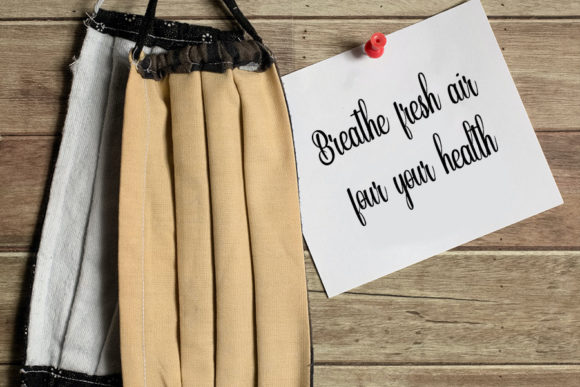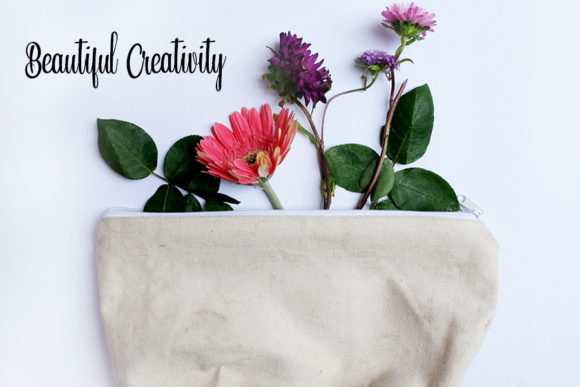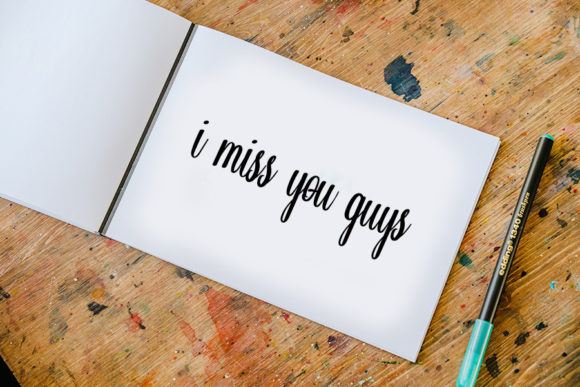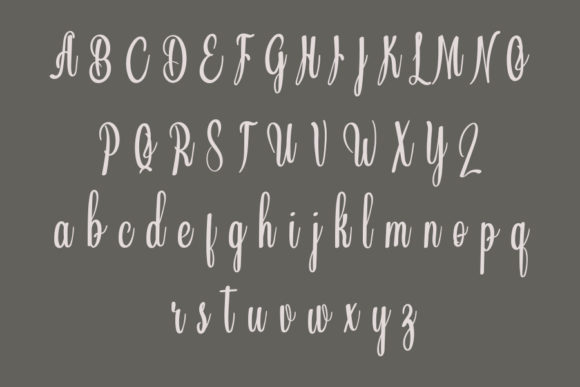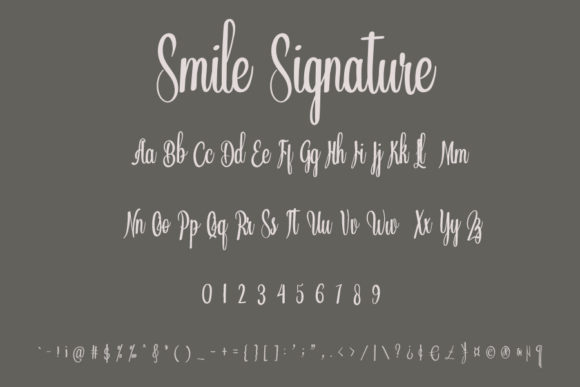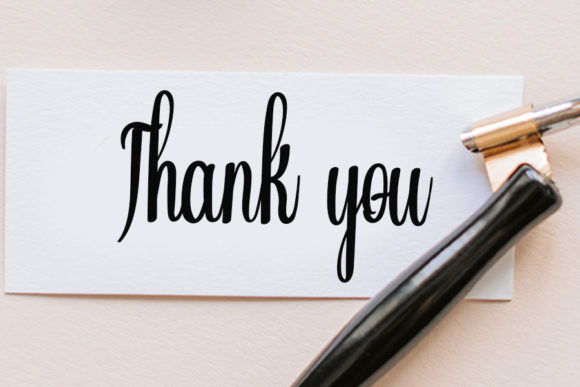
Smile Signature Font
About Smile Signature Font
Smile Signature is a casual handwritten font, carefully designed to become a true favorite. It maintains its classy calligraphic influences while feeling contemporary and fresh. Fall in love with it, and let it bring your projects to the highest levels!